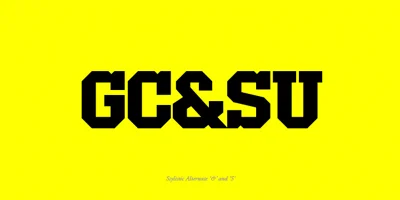
Offense Font
Offense Font is an exceptional choice for projects that demand a powerful, aggressive, and distinctly impactful aesthetic, often with a raw, unrefined edge. It's perfectly suited for sports team branding, intense gaming titles, protest signs, urban streetwear designs, and any application where you want to convey a sense of bold confrontation, rebellious spirit, and uncompromising strength. Imagine it dominating the logo of an extreme sports event, adding a formidable and authentic feel to a heavy rock band's album cover, or giving a distinctive, in-your-face voice to a brand that challenges the status quo. Its sharp angles, often distressed textures, and commanding presence ensure your message is conveyed with both an undeniable attitude and a captivating, visceral impact.
What makes Offense Font so exciting is its ability to immediately infuse a design with a sense of raw, unbridled energy and a strong, defiant identity. It captures the essence of a powerful statement, making it ideal for projects that aim to feel intense, unyielding, and deeply impactful. This font isn't just about displaying text; it’s about making a forceful declaration, adding a layer of rebellious spirit and raw artistic power to your visuals. It's the ideal tool for designers looking to infuse their work with a strong, uncompromising character and a memorable visual punch.
The Offense Font family typically offers a range of weights and styles to provide robust design flexibility, often emphasizing its unique distressed or aggressive characteristics. You might find a standard Regular weight that embodies its core powerful design, along with potential variations that enhance its visual impact, such as bolder versions for maximum emphasis or slight stylistic alterations that reinforce its confrontational character. These nuances ensure that Offense Font can be the cornerstone of a truly unique and powerfully thematic visual identity, helping your designs stand out with an undeniable sense of character and unbridled force.